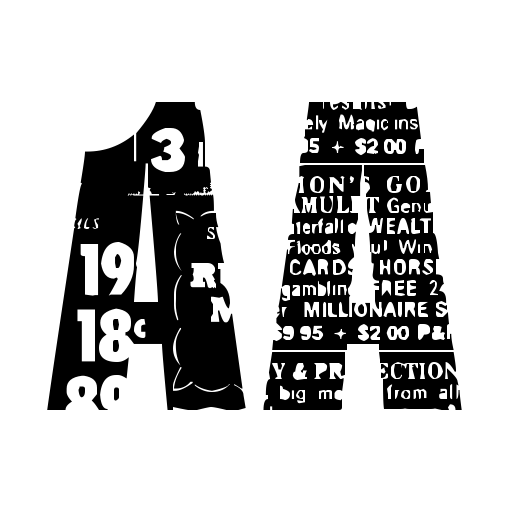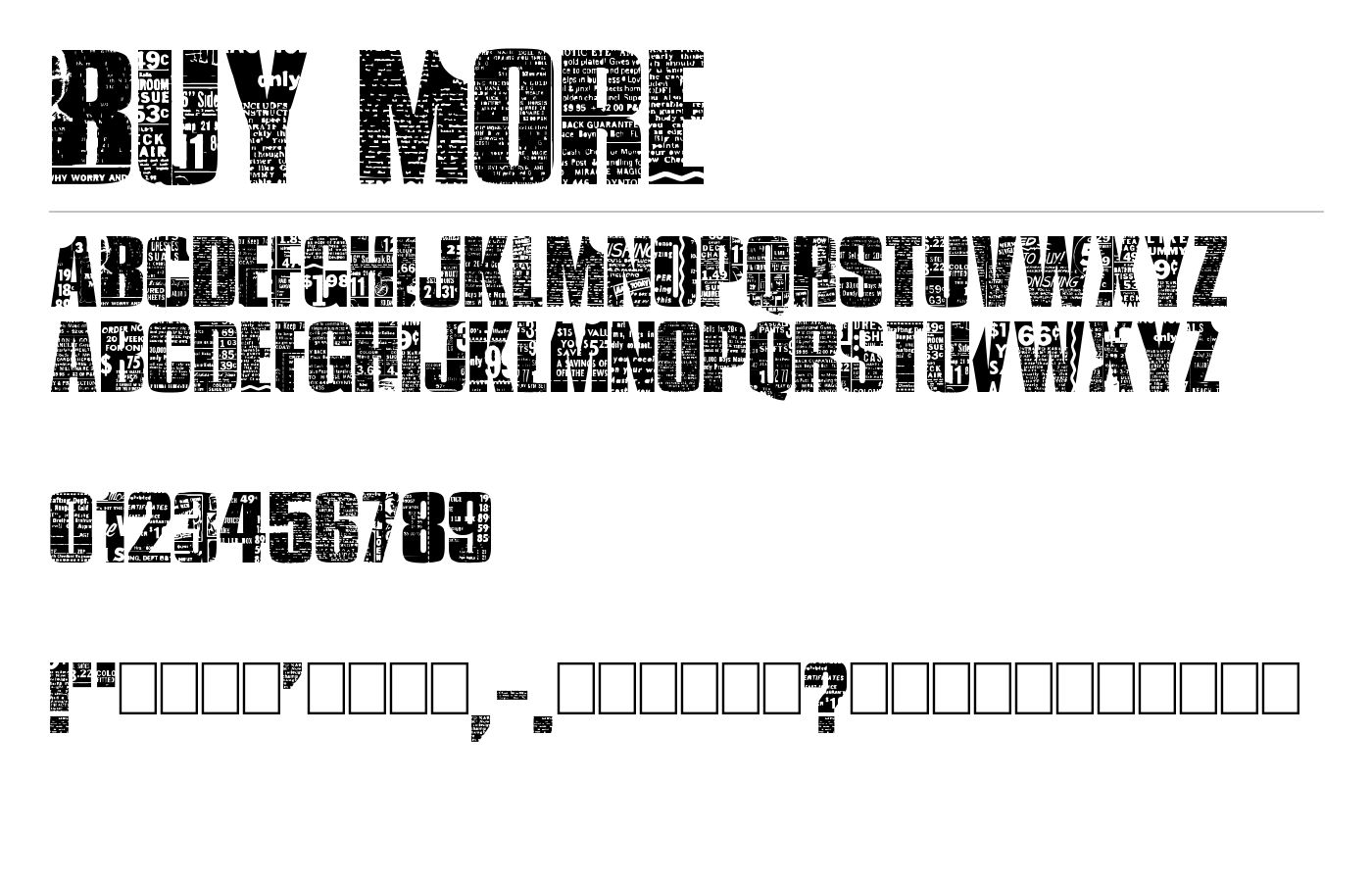
Buy More Font is a bold, condensed sans serif with a striking distressed texture that mimics worn print or vintage newspaper headlines. Its tight spacing and strong geometric shapes give it a gritty, urban feel, making it ideal for attention-grabbing posters, edgy branding, and designs that want to evoke a raw, industrial vibe. This font works well for bold headlines and display purposes where a dramatic, weathered look is desired.
Buy More Font